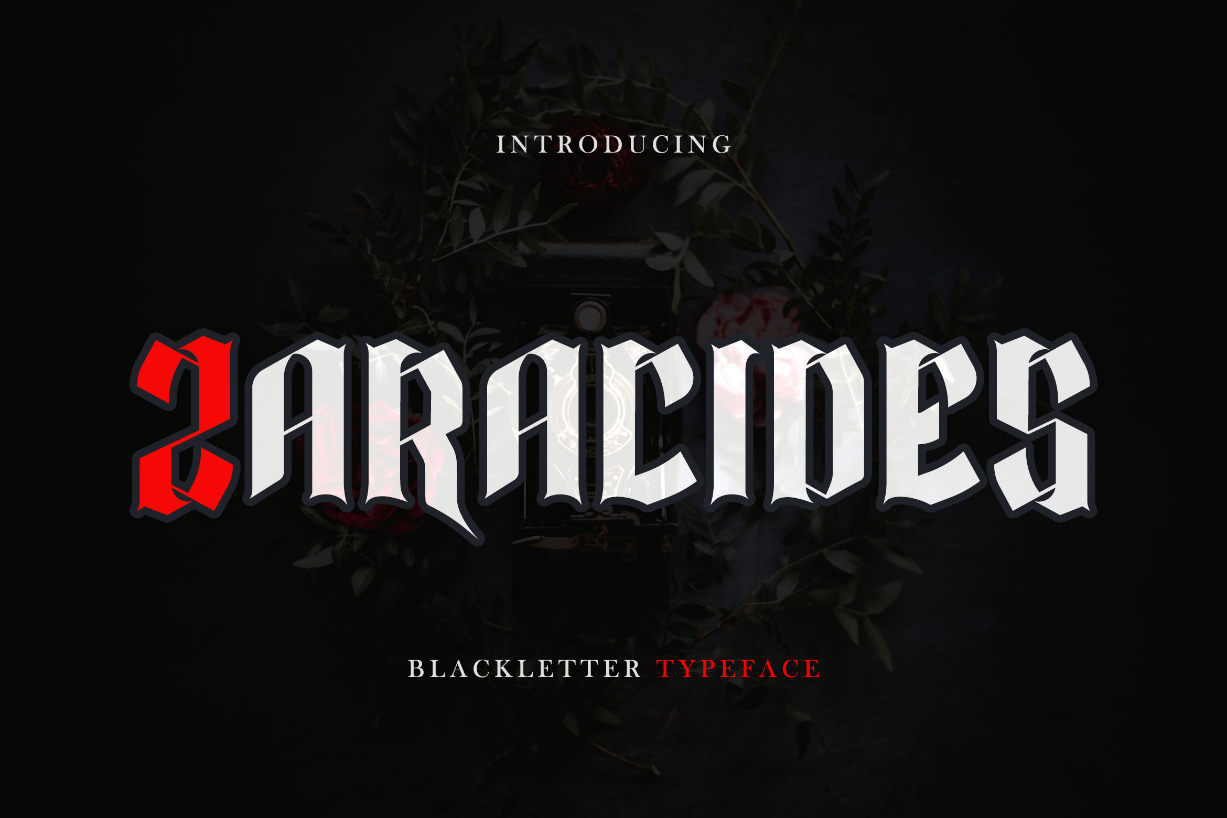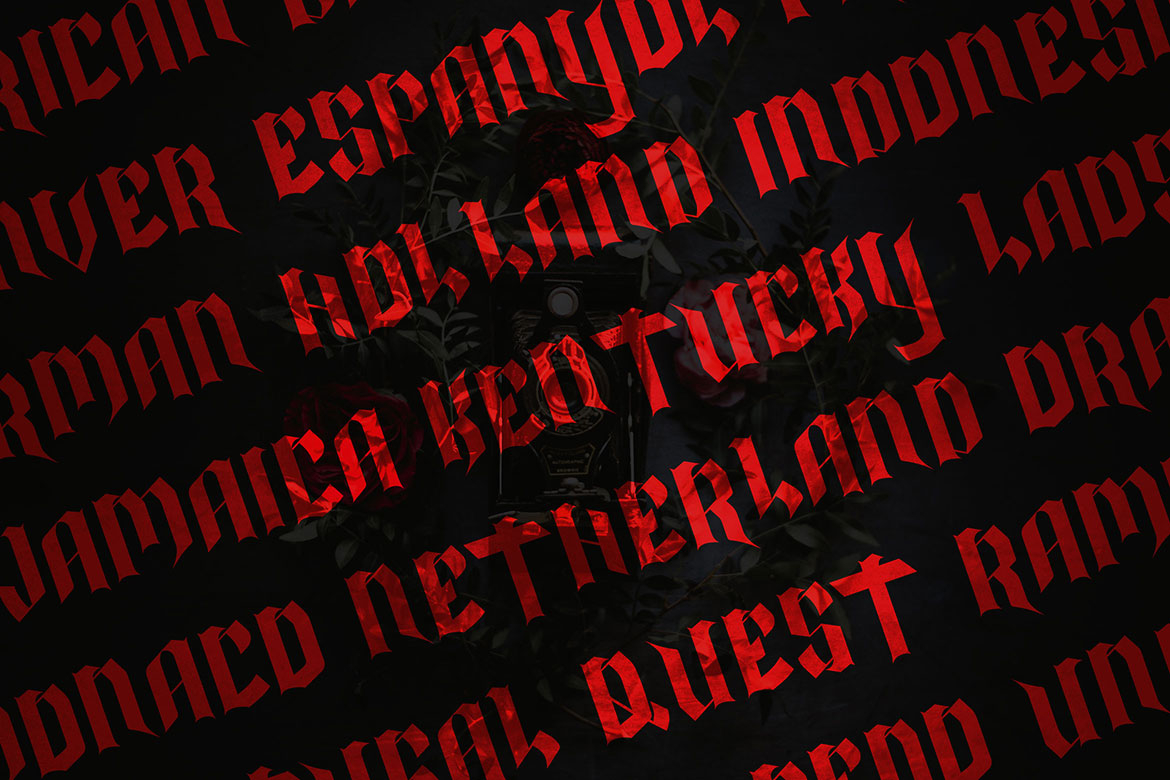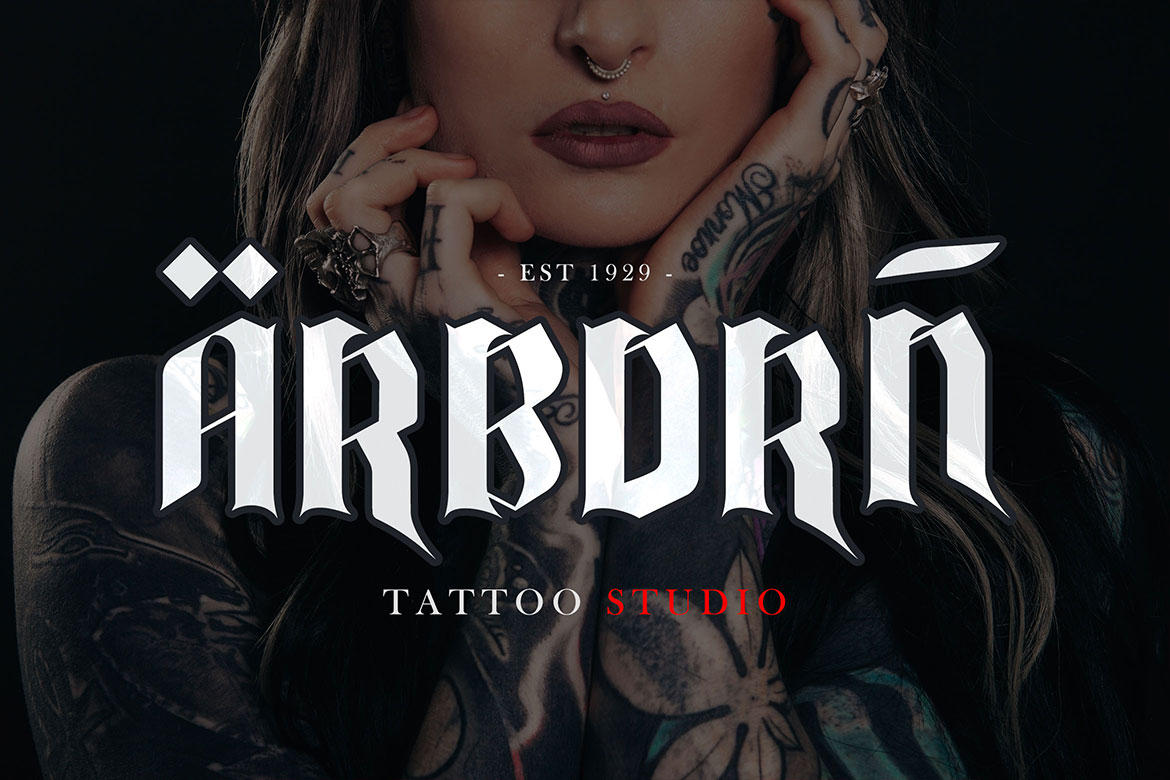
Zaracides Font
About Zaracides Font
Zaracides is a classic blackletter font. Fall in love with its incredibly versatile style and use it to create beautiful designs!